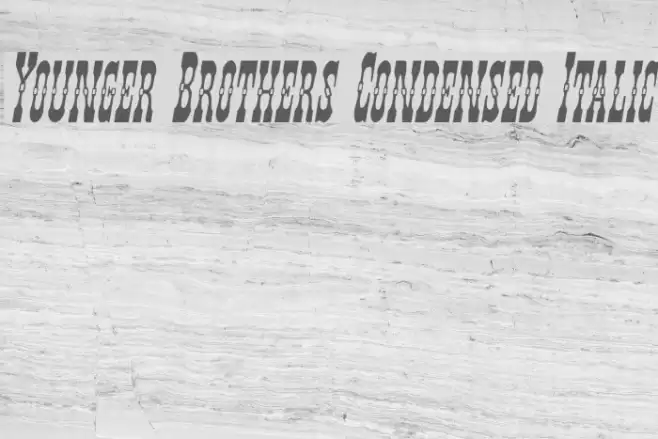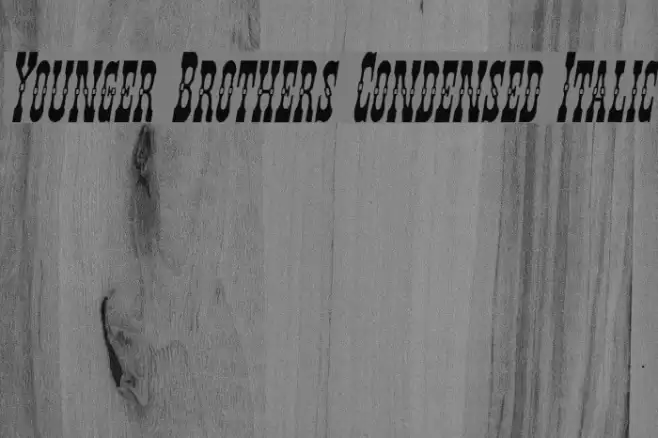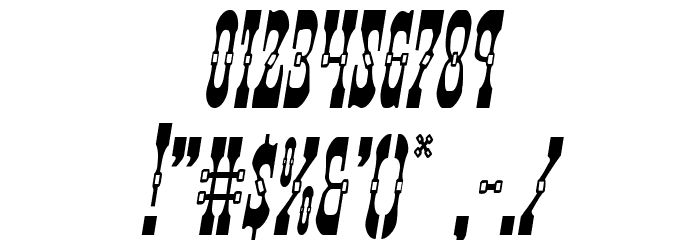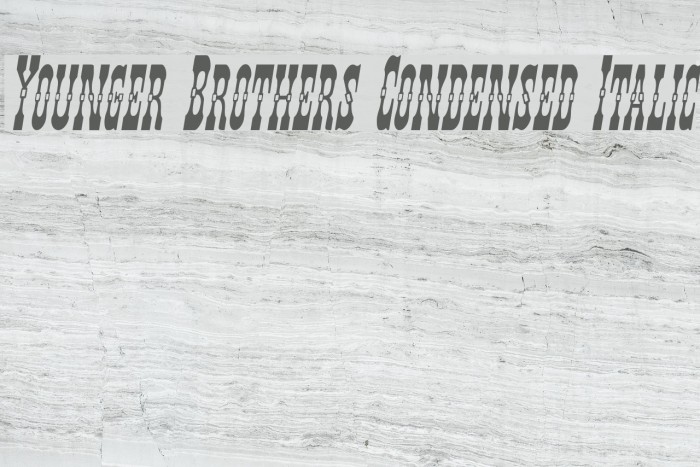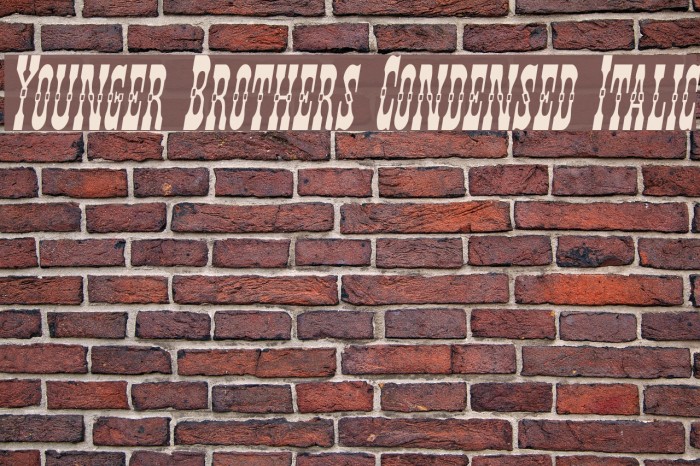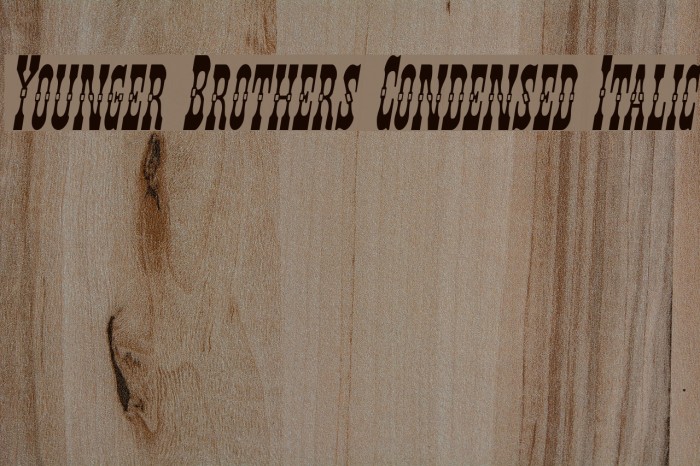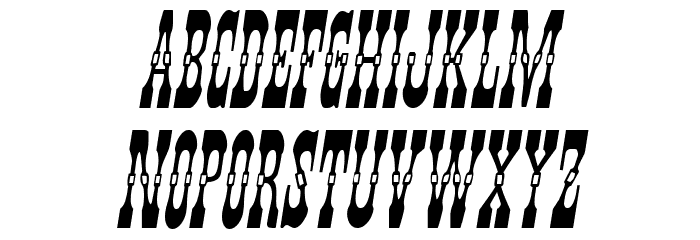
Younger Brothers Condensed Italic Font
Younger Brothers Condensed Italic Description
This font features a bold and condensed style with a distinct italic slant, giving it a dynamic and energetic appearance. The characters are tightly spaced, enhancing the condensed effect, while the bold weight ensures strong visibility and impact. The font includes a full set of uppercase and lowercase letters, numerals, and a variety of special characters, making it versatile for various design needs. The unique style is characterized by its decorative elements, adding a touch of flair to each character. This font is well-suited for projects that require a standout, eye-catching typeface.
A bold, condensed, and italic font with decorative elements from Uncategorized fonts.
- Proposed Projects: Ideal for posters, headlines, logos, and branding materials that require a bold and dynamic typeface.
- Character Spacing: Tight